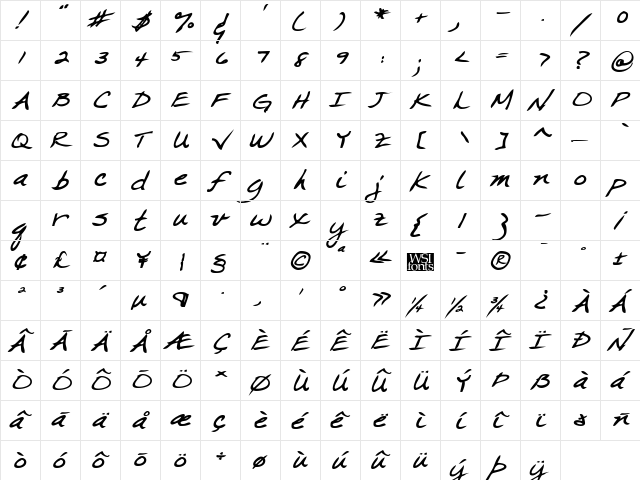
CrystalsHand Bold Italic Font Preview
CrystalsHand Bold Italic
CrystalsHand Bold Italic Font Details
Design Context for CrystalsHand Typeface
CrystalsHand brings a calligraphic fluidity to the page — its connecting strokes and expressive curves give it an unmistakably human quality. Its bold stroke weight gives it real presence on the page.